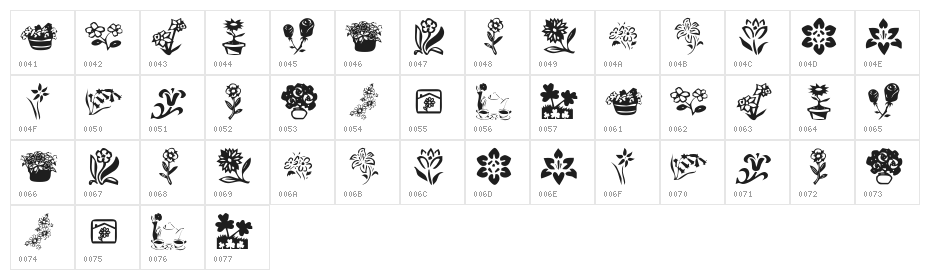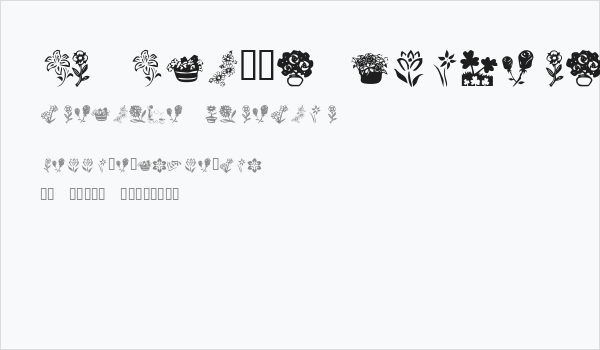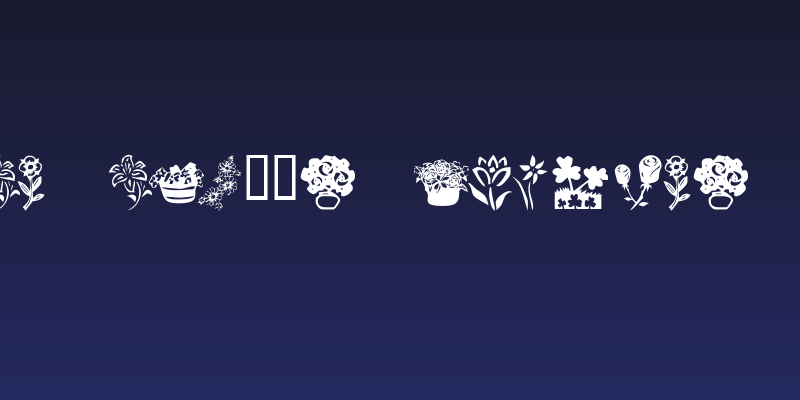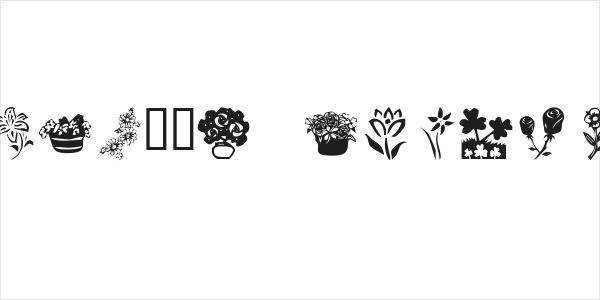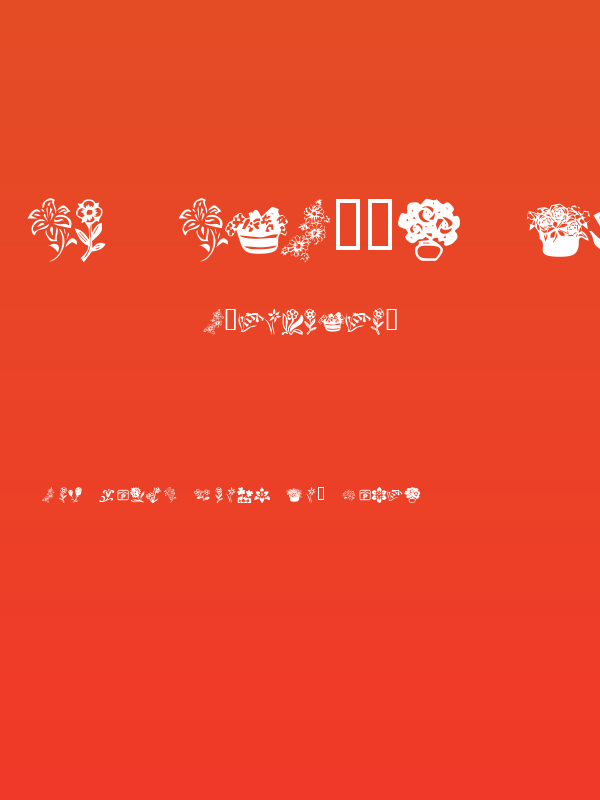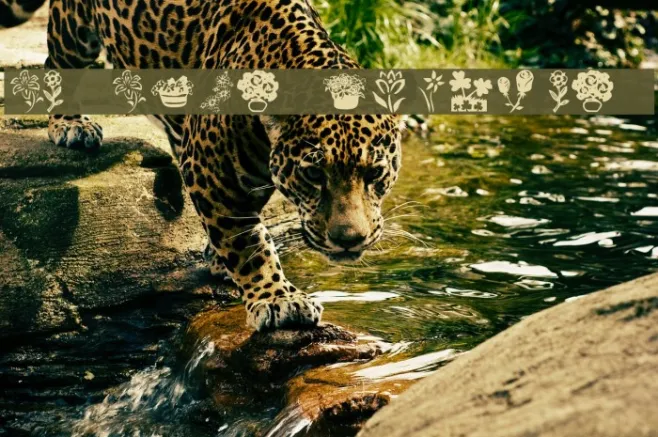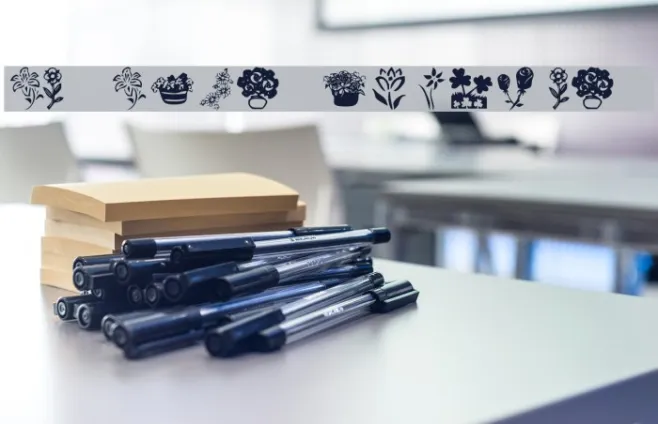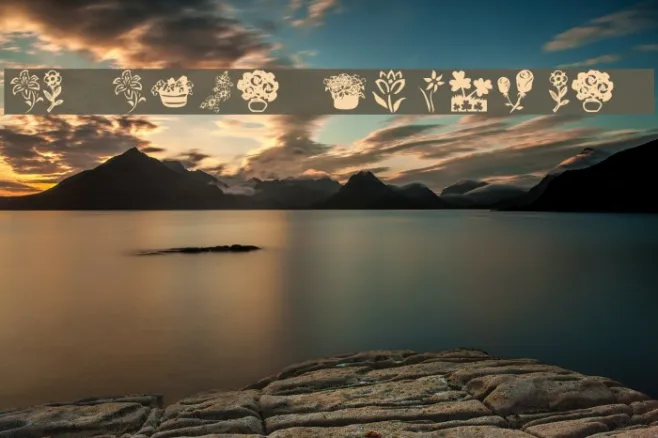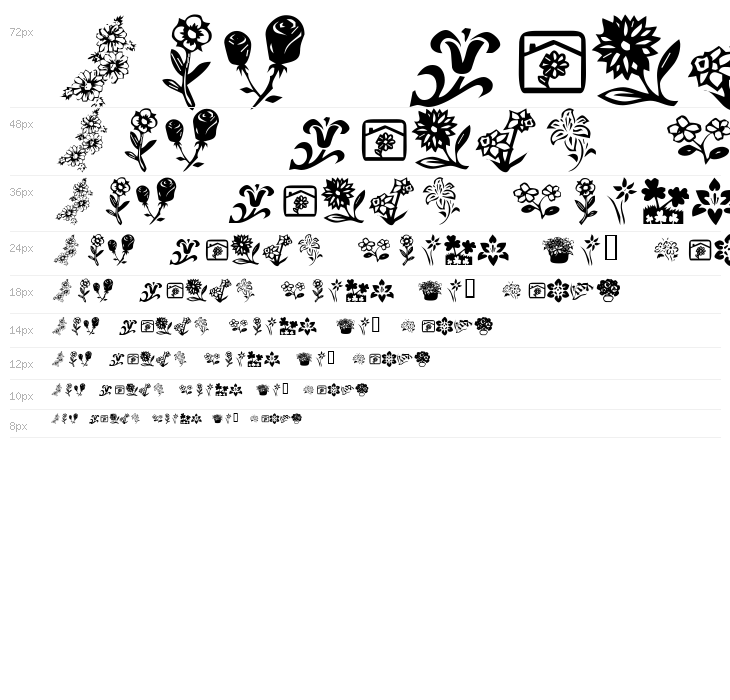
KR Kat's Flowers 4 Font
KR Kat's Flowers 4 Description
A decorative dingbat font featuring a variety of stylized flower and plant illustrations, including potted flowers, bouquets, and floral motifs, rendered in bold black and white silhouettes with playful and whimsical details.
| Overall Style | Decorative, Whimsical |
| Use Case | Icons, Decorative elements, Borders, Themed graphics |
| Proposed Projects | Greeting cards, scrapbooking, invitations, decorative borders, spring or garden-themed designs, educational materials for children. |